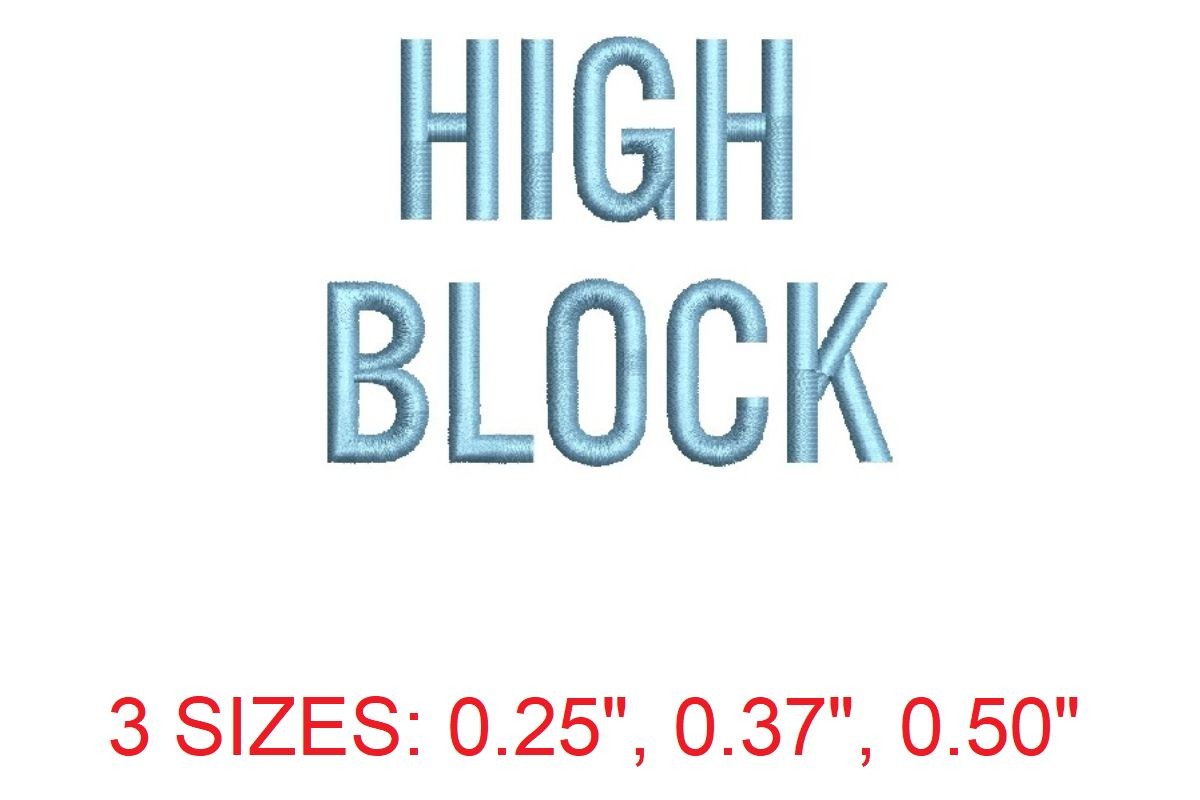
High Block Embroidery Font
Elevate your embroidery projects with the sleek and sophisticated High Block Embroidery Font. With its clean and bold lettering, High Block adds a touch of modernity and professionalism to any design. Whether you're monogramming garments, personalizing accessories, or creating home decor, this font guarantees impeccable stitch quality and professional-looking results. Please note: The sizes and stitches information shown below is for "A" and "a" in each size. This is provided as a summary of what is available in this download file. For the full dimension details of the 156 letters in this set, click on the More Sewing Info (PDF) button on this page. This machine embroidery design comes with multiple embroidery file formats and can be used with multiple embroidery machines.